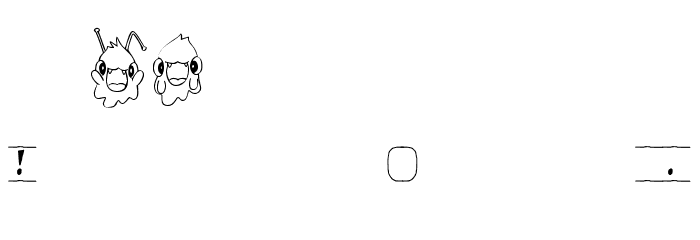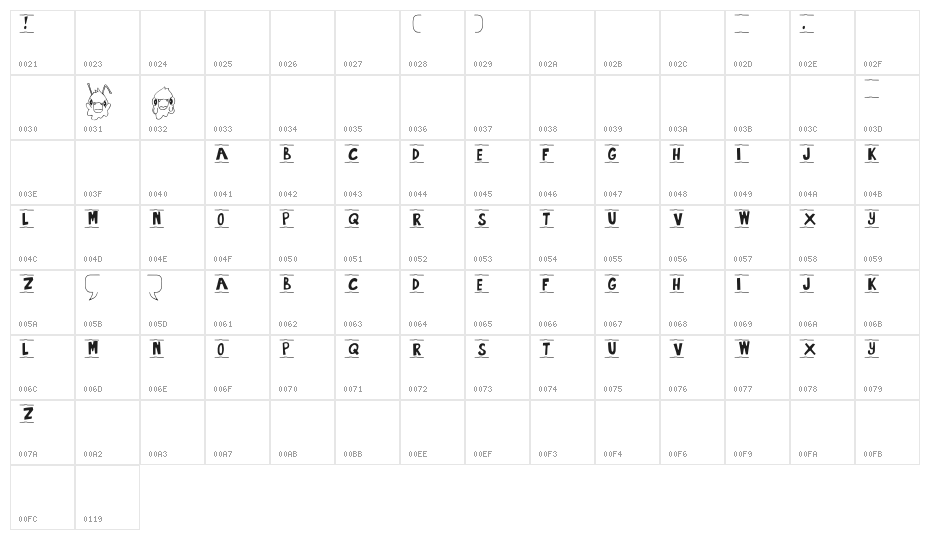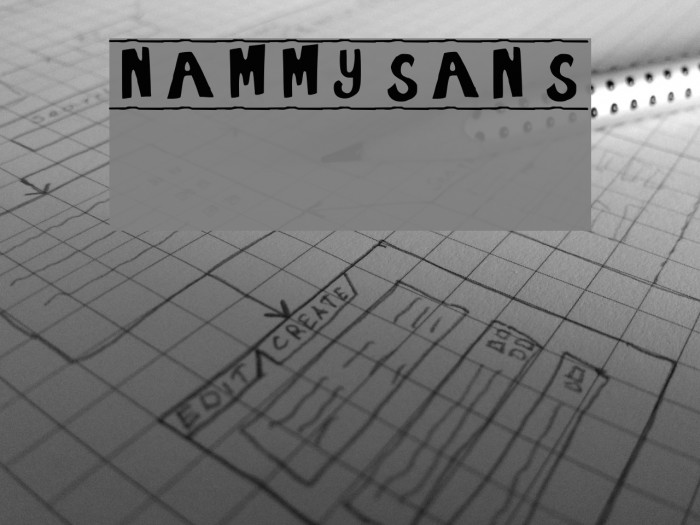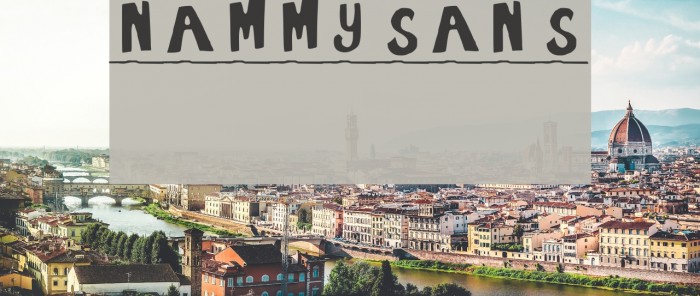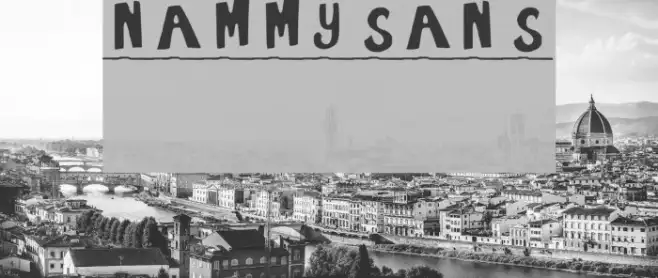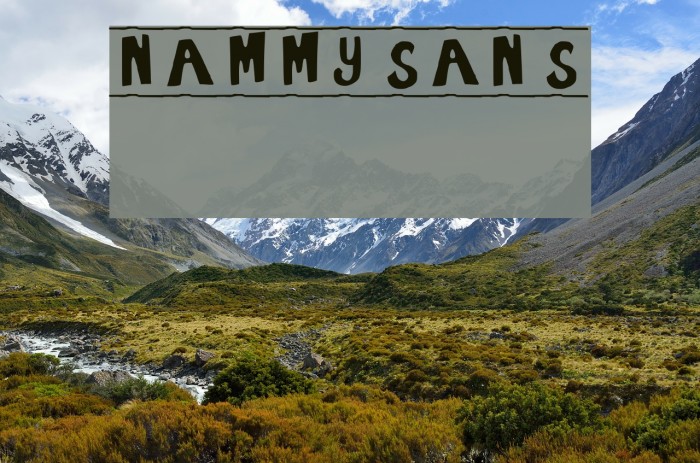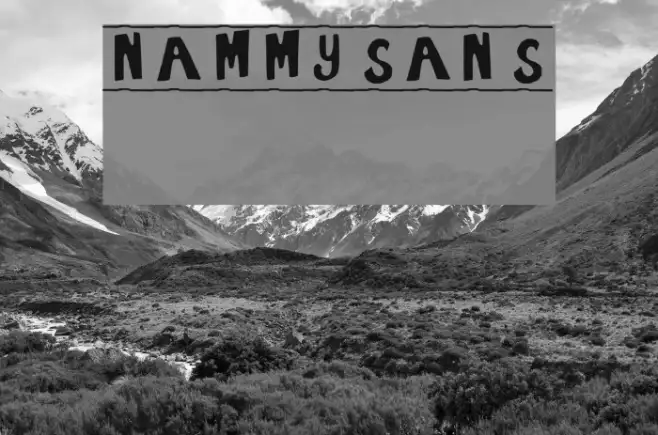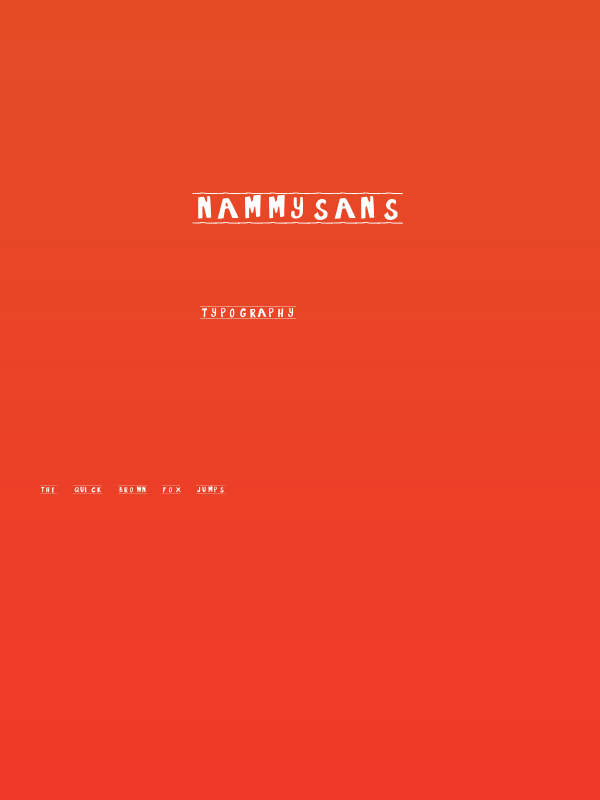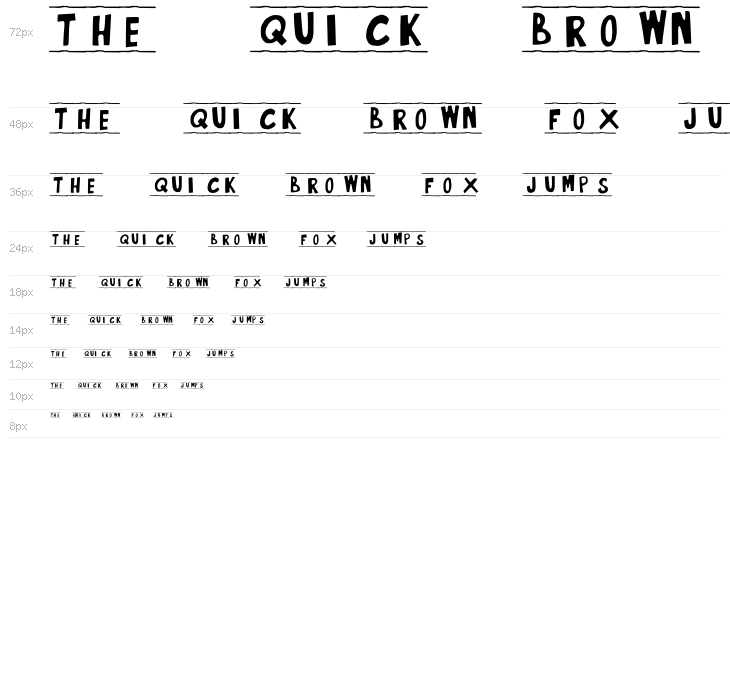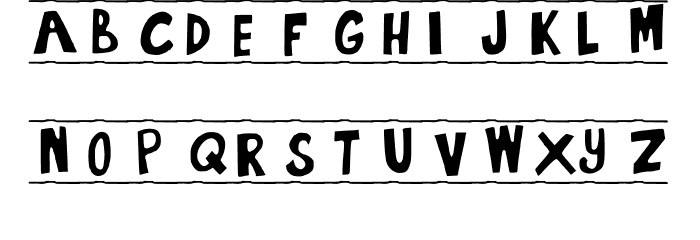
NammySans Font
NammySans Description
This playful and bold font features a hand-drawn aesthetic with thick, uneven strokes that give it a whimsical and informal feel. The uppercase letters are prominent and slightly irregular, adding to the font's charm and uniqueness. The characters are wide and have a consistent height, which contributes to a cohesive look. The font's quirky style is further emphasized by its playful curves and angles, making it ideal for projects that require a fun and engaging appearance. The overall design is reminiscent of doodles or sketches, perfect for creative and artistic applications.
Proposed ProjectsIdeal for children's books, playful branding, creative posters, and artistic invitations.